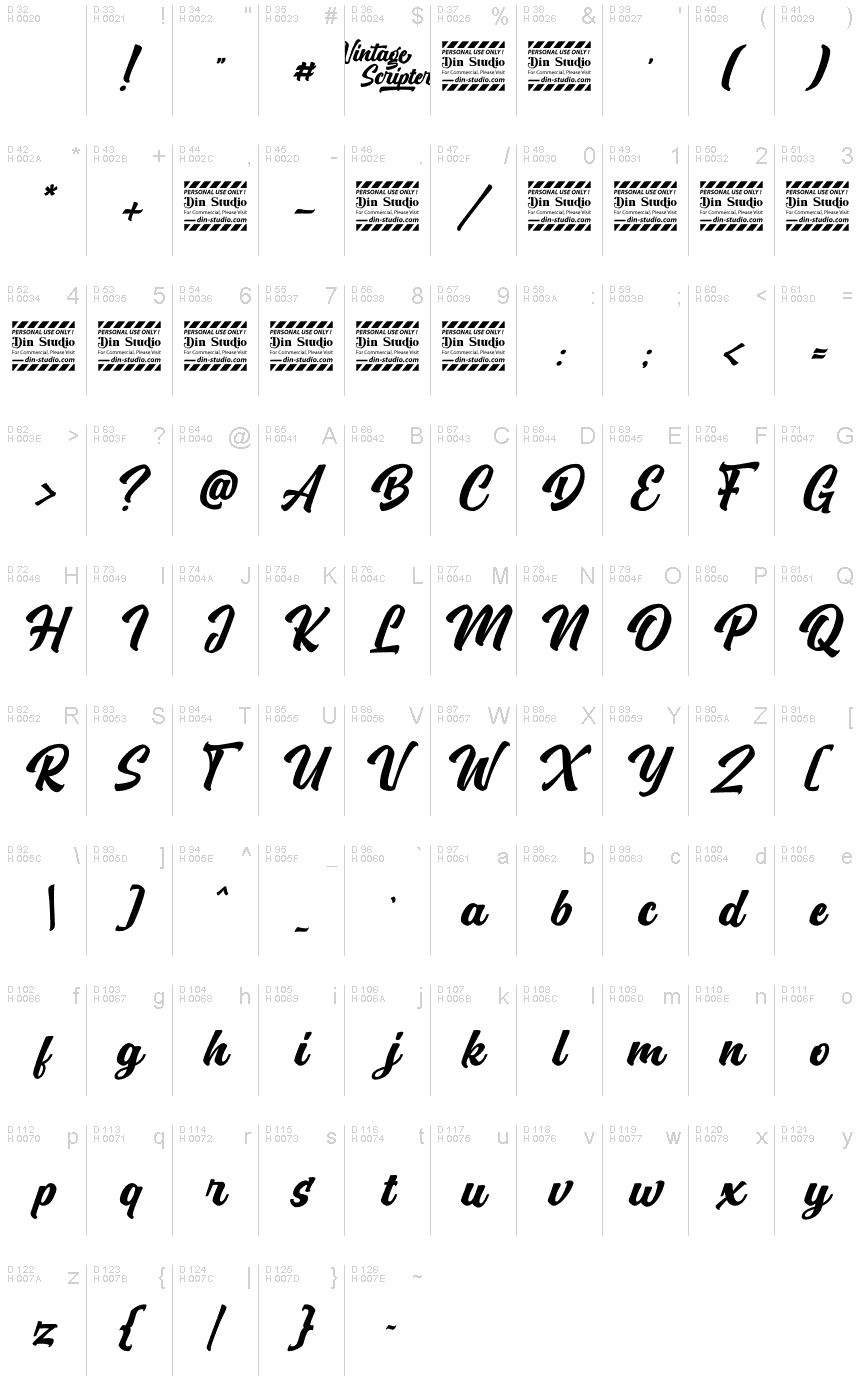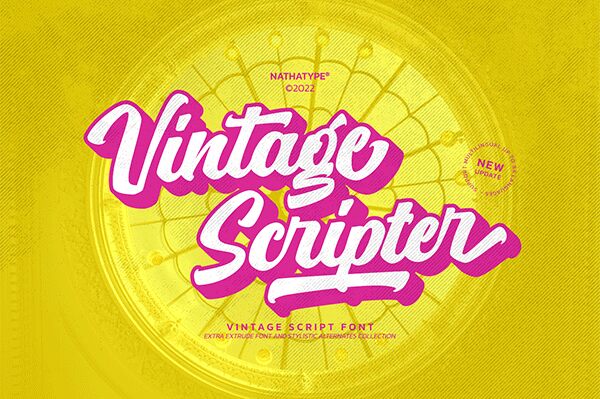
Vintage Scripter Personal Use
Vintage Scripter, designed by Din Studio, is a stunning vintage brush font that adds a touch of old-school charm to any project. With its authentic script style and rough edges, this semi-bold typeface is perfect for creating an antique feel on invitations, logos or branding materials. Its bold yet elegant strokes are ideal for headlines or titles that need to grab attention. Whether you want to create a retro vibe for your next poster or add a touch of elegance to your wedding invitations, Vintage Scripter is the perfect font choice!